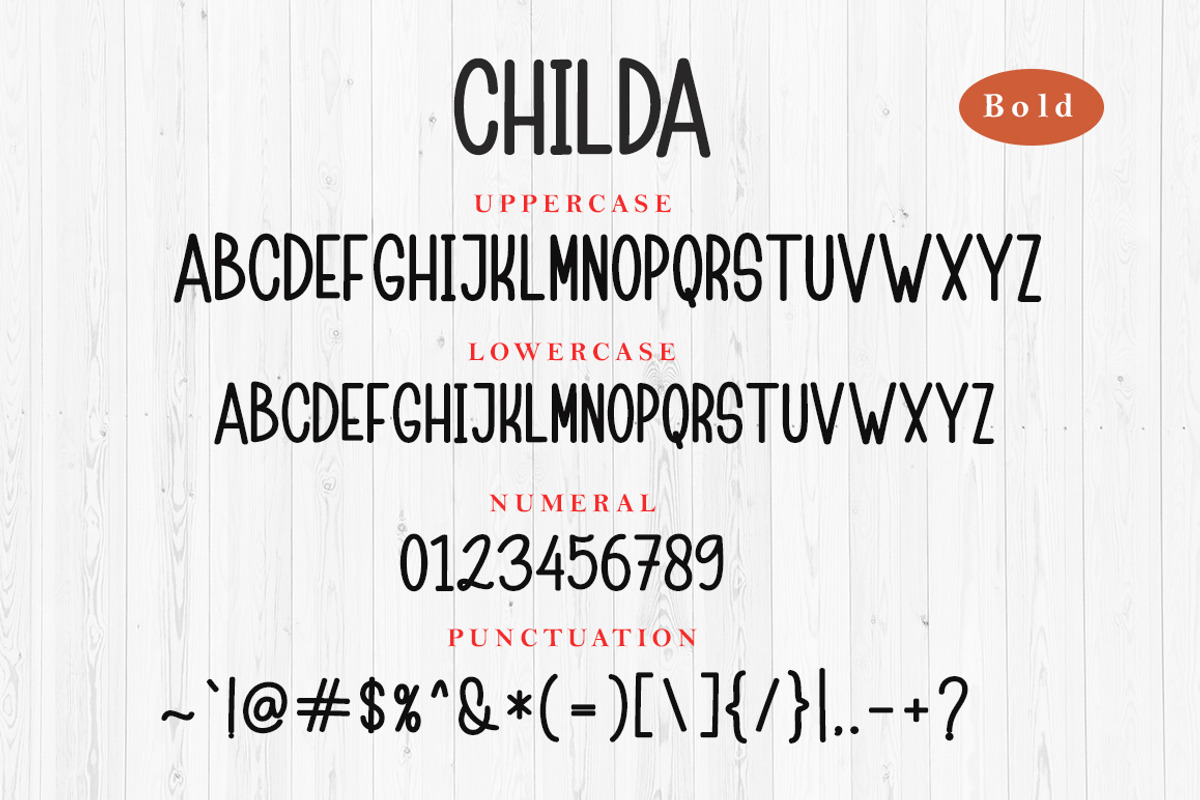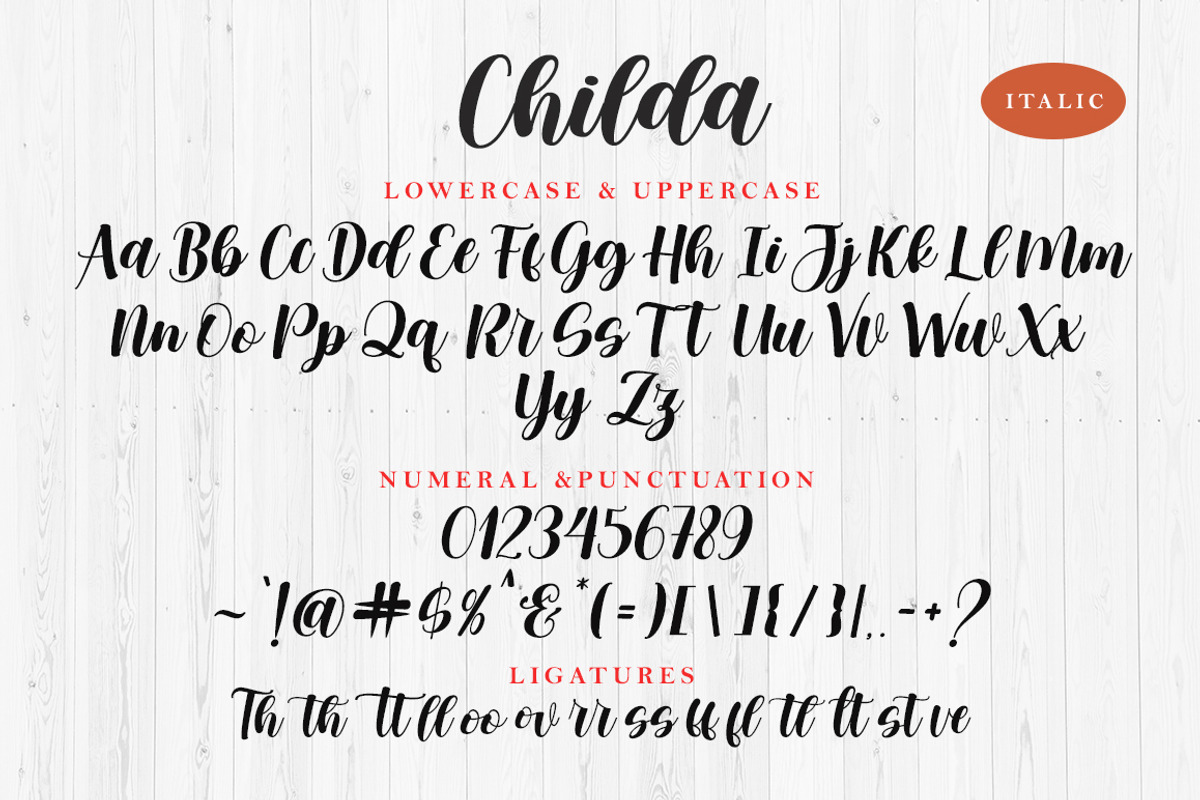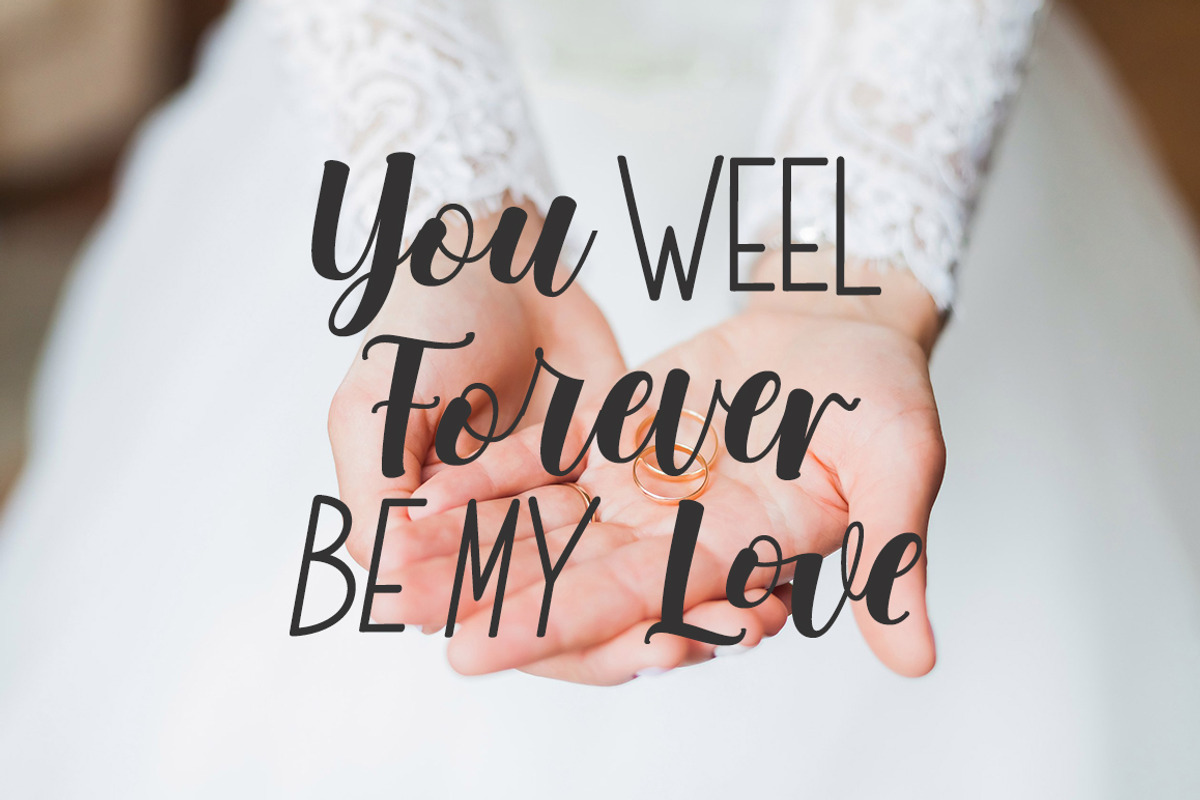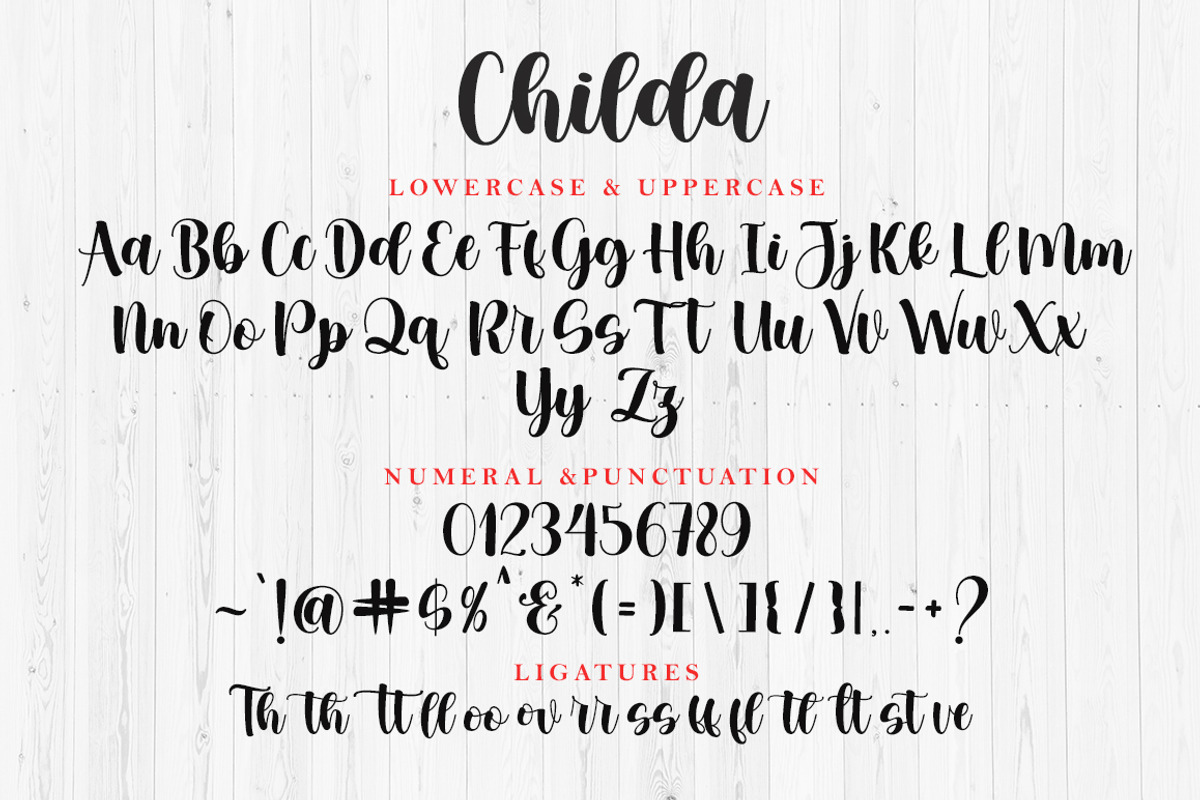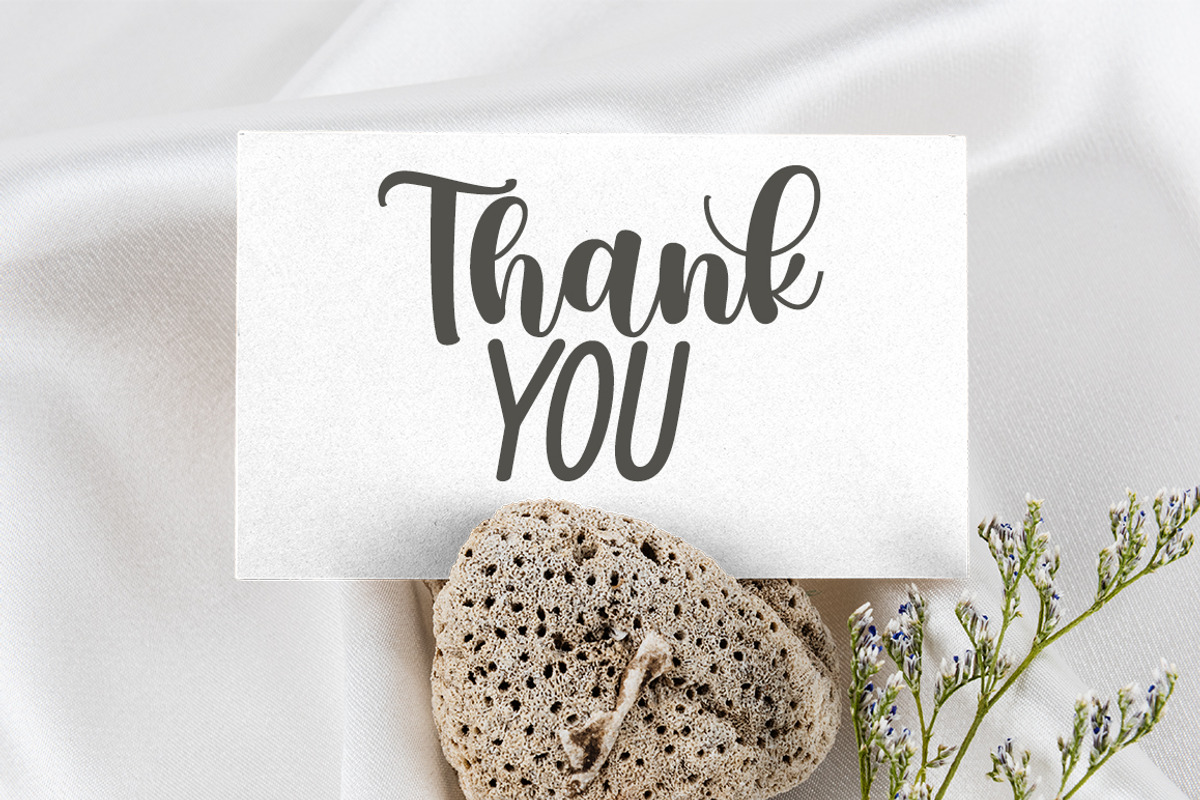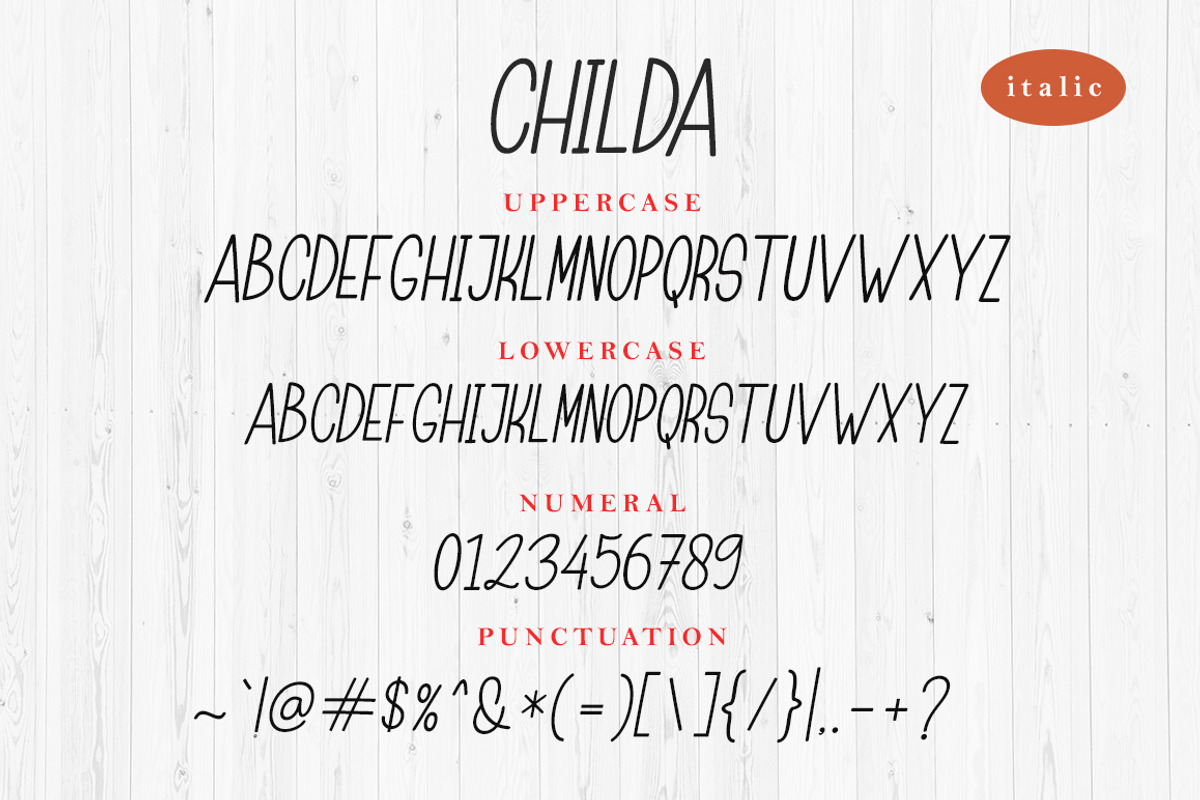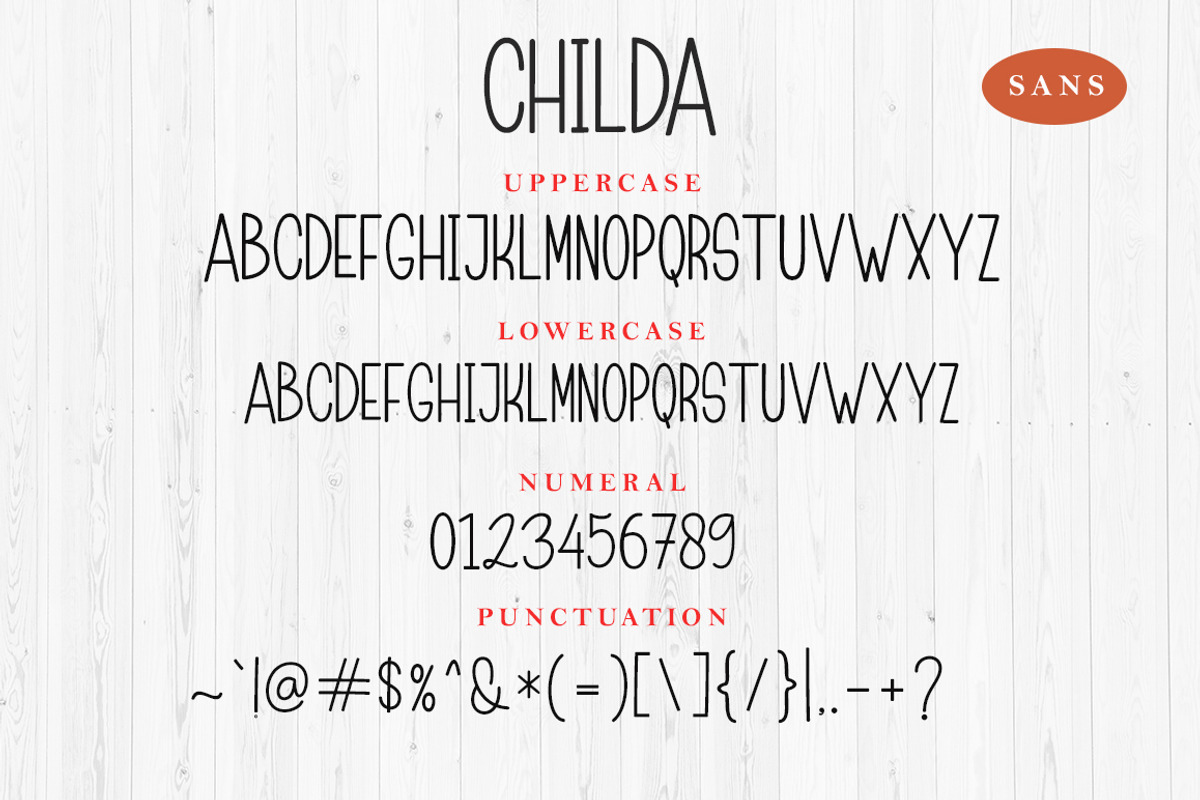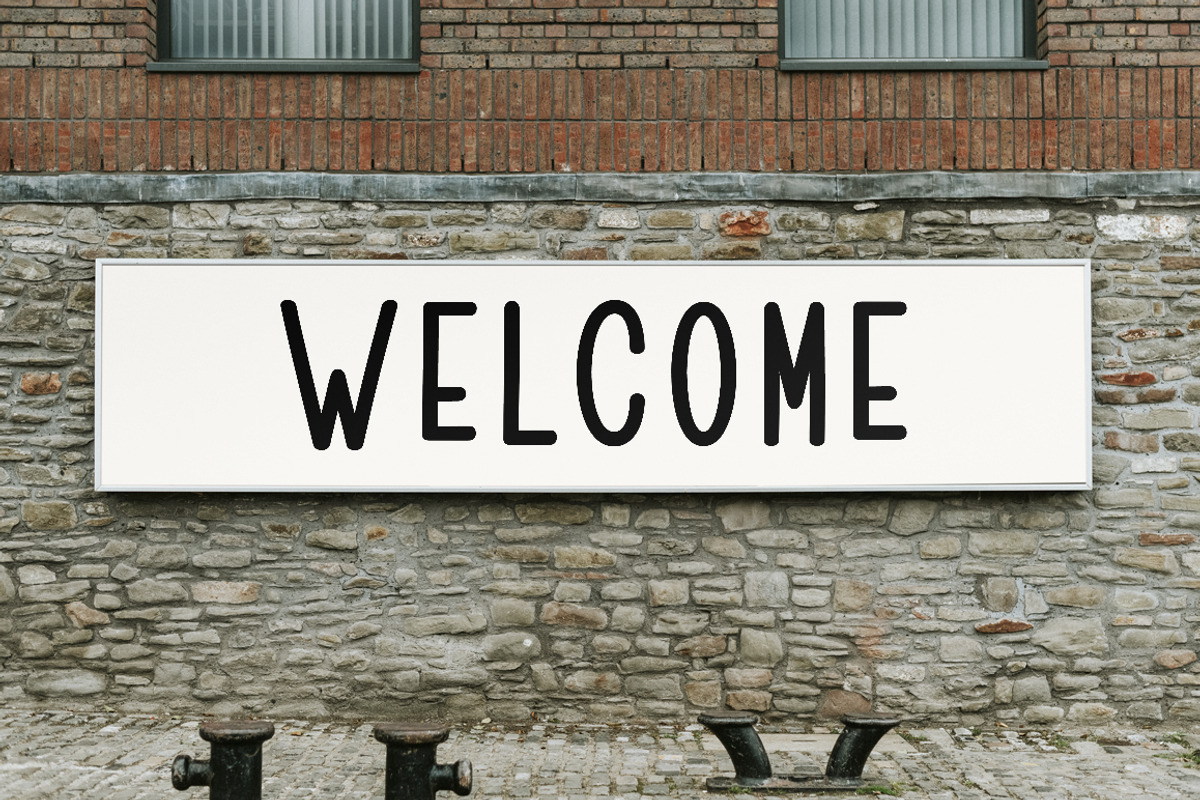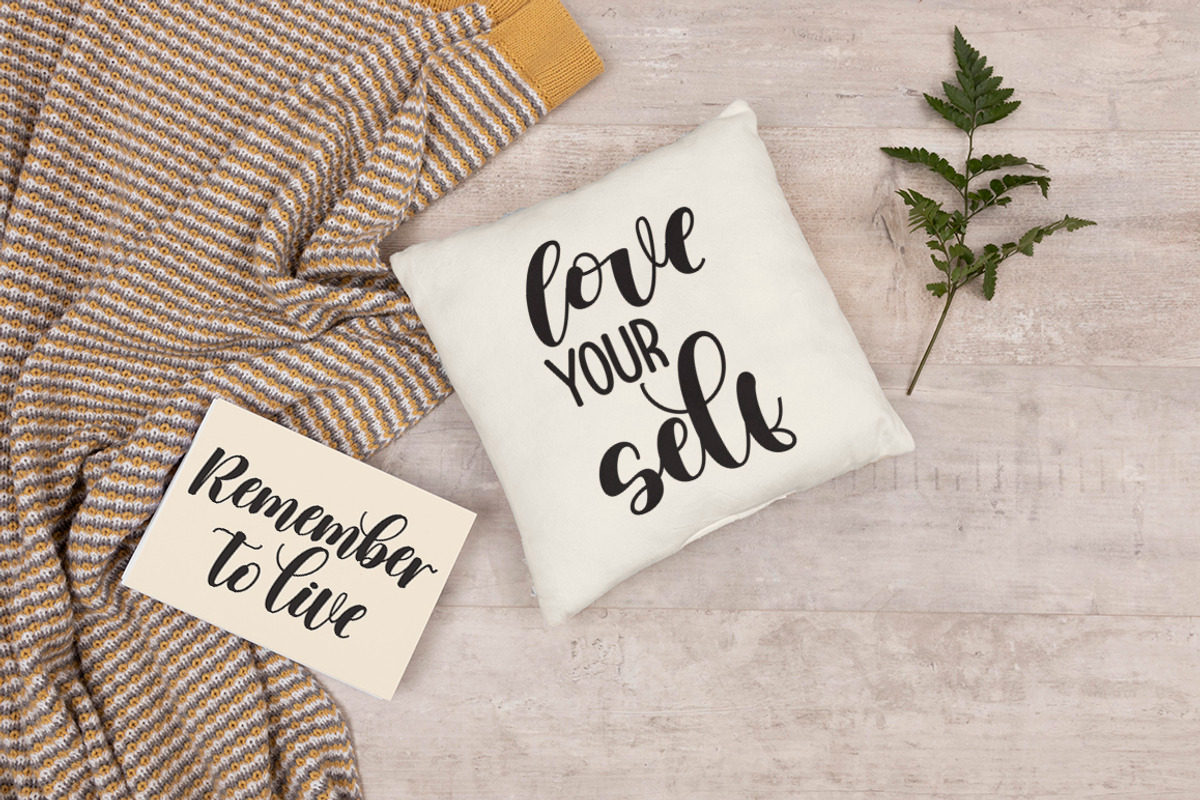
Childa
Childa is a subtle and elegant font. This font has a lovely touch of character, perfect for a variety of designs. Childa features varied baselines, unique smooth lines, and stunning alternatives. Add to your most creative ideas and see how to make art!